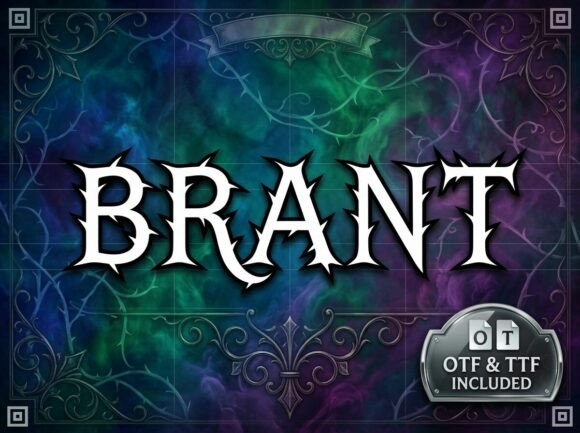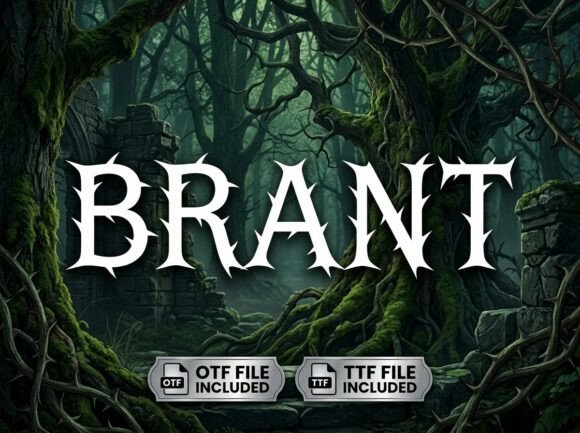
Unleash the Dark Elegance: Discover the Haunting Beauty of Brant Font
In the realm of typography, few fonts evoke the essence of mystery and elegance as profoundly as Brant. This display typeface is a masterful blend of gothic and mysterious elements, making it an ideal choice for designers and crafters seeking to infuse their projects with a touch of the dark side. With its sharp, serif-based letterforms, rhythmic thorn-like protrusions, and aggressive, pointed terminals, Brant Font is poised to become the go-to typeface for those who dare to embrace the shadows.
The Enchanted Aesthetic of Brant Font
Brant Font’s design is characterized by its unique blend of Gothic and mysterious elements. The sharp, serif-based letterforms are reminiscent of a bygone era, while the rhythmic thorn-like protrusions and aggressive, pointed terminals evoke the mystique of an enchanted forest. This haunting beauty is precisely what sets Brant apart from other typefaces, making it an excellent choice for projects that require a touch of darkness and sophistication.
Ideal Applications for Brant Font
Brant Font’s versatility and distinctive aesthetic make it suitable for a wide range of applications, including:
- Independent Gothic Apparel Branding: For designers looking to create a bold and eye-catching brand identity, Brant Font is an excellent choice. Its menacing silhouette and handcrafted fantasy charm are sure to appeal to those who dare to be different.
- Dark Fantasy Book Covers: Brant Font’s haunting beauty is perfectly suited for book covers that require a touch of mystery and elegance. Whether you’re a self-published author or a traditional publisher, Brant Font is sure to capture the essence of your dark fantasy novel.
- Heavy Metal Album Art: For musicians and designers looking to create a bold and aggressive visual identity, Brant Font is an excellent choice. Its sharp, serif-based letterforms and aggressive, pointed terminals are sure to resonate with fans of heavy metal music.
- Fairytale-Noir Social Media Headers: Brant Font’s unique blend of elegance and menace makes it an excellent choice for social media headers that require a touch of sophistication and mystery.
Key Features of Brant Font
So, what makes Brant Font so unique? Here are some of its key features:
- Sharp, Serif-Based Letterforms: Brant Font’s letterforms are characterized by sharp, serif-based designs that evoke a sense of elegance and sophistication.
- Rhythmic Thorn-Like Protrusions: The rhythmic thorn-like protrusions add a touch of mystery and menace to Brant Font, making it perfect for projects that require a bold and eye-catching aesthetic.
- Aggressive, Pointed Terminals: The aggressive, pointed terminals of Brant Font add a touch of aggression and sophistication, making it suitable for a wide range of applications.
- Handcrafted Fantasy Charm: Brant Font’s handcrafted fantasy charm is evident in its unique design elements, making it an excellent choice for designers and crafters looking to add a touch of magic to their projects.
In conclusion, Brant Font is a hauntingly beautiful display typeface that is sure to capture the essence of your project. With its sharp, serif-based letterforms, rhythmic thorn-like protrusions, and aggressive, pointed terminals, Brant Font is the perfect choice for designers and crafters looking to unleash the dark elegance of their designs. Whether you’re creating independent gothic apparel branding, dark fantasy book covers, heavy metal album art, or fairytale-noir social media headers, Brant Font is sure to become your go-to typeface.
Get Ready to Embrace the Dark Side of Elegance